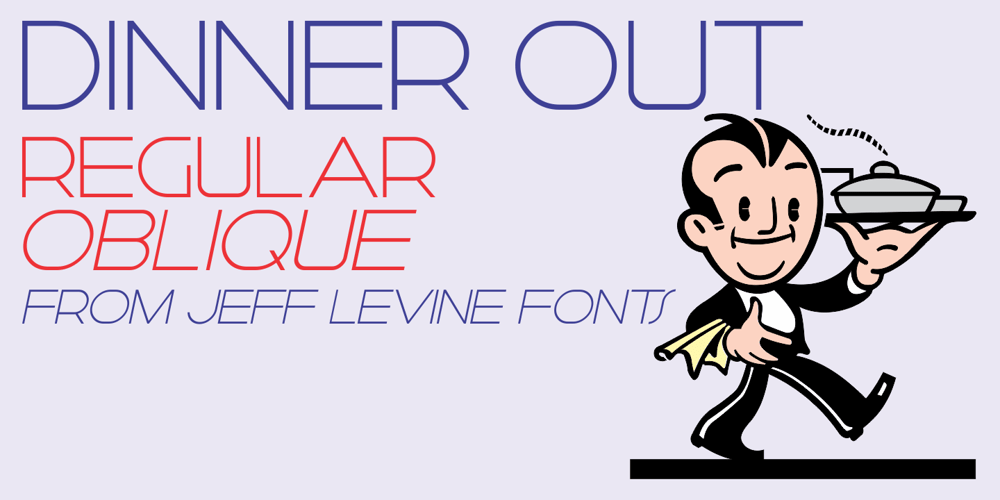
Dinner Out JNL Font Family was designed by Jeff Levine and published by Jeff Levine. Dinner Out JNL contains 2 styles and family package options. A 1937 image of New York’s famous Longchamps Restaurant shows off the beautiful neon signage on the building. The thin, elongated Art Deco sans lettering evoked the style and charm of the restaurant itself.Expanding on this idea, Dinner Out JNL is the digital version of that signage, and is available in both regular and oblique vesions.